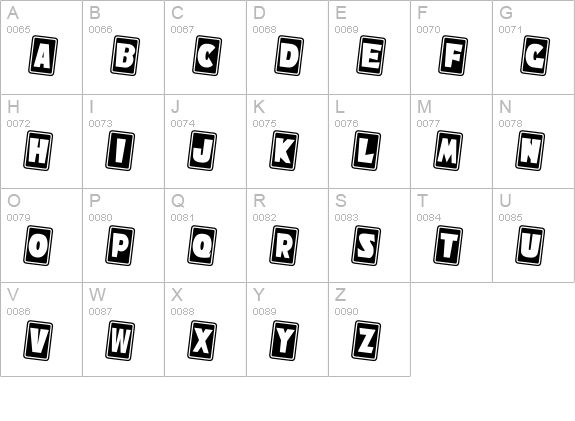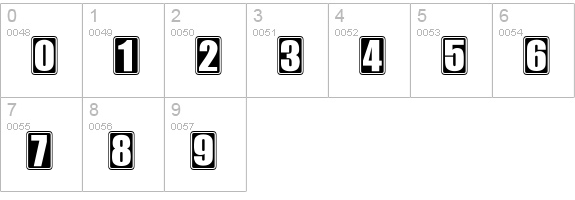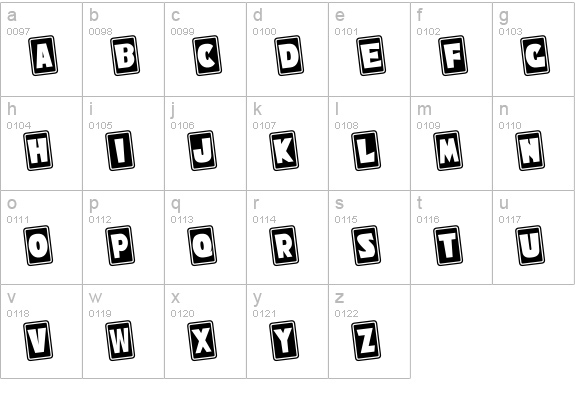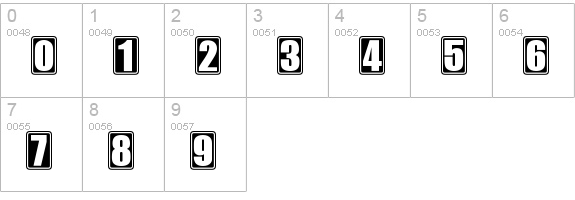
NiseSonicShuffle font is a playful and whimsical typeface that exudes a sense of fun and creativity. With its unique design and playful curves, this font is perfect for adding a touch of whimsy to any project. Whether you're working on a birthday invitation, a children's book, or a fun poster, NiseSonicShuffle font will add that extra dose of charm. Best of all, NiseSonicShuffle font is available for free download at FontsMarket.com. Simply head over to the website and grab this delightful font to add a dash of fun to your designs. Don't miss out on the opportunity to enhance your projects with this charming and free font!